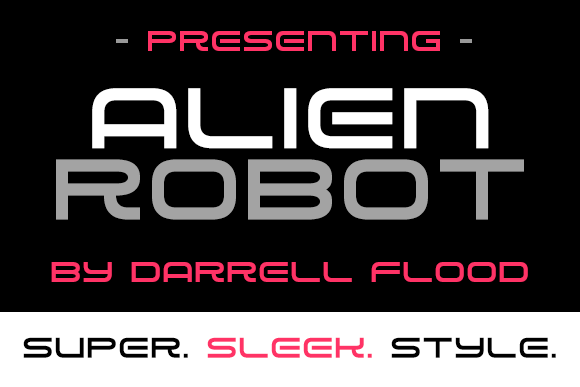
The Birth of a Cosmic Typography
Have you ever stared at a blank screen, waiting for the perfect font to strike inspiration? It’s a moment we’ve all experienced as creatives, when the cursor blinks and the ideas flow. For designers, this moment can be a game-changer. It’s the spark that sets off a chain reaction of creativity, leading to innovative projects that leave a lasting impression.
| 👤 Author | Dadiomouse |
One such font that’s sure to spark that creative spark is the Alien Robot Font. This futuristic, curved font is designed to transport your audience to a world of sleek modernity and sci-fi wonder. Perfect for tech presentations and futuristic themes, it’s an essential tool for designers looking to push the boundaries of visual storytelling.
Alien Robot Font Key Features
- Font Family: Alien Robot, with multiple weights and styles, including bold, italic, and bold italic.
- Character Set: The font includes a wide range of characters, including uppercase and lowercase letters, numbers, punctuation marks, and special symbols.
- Unique Characteristics: Alien Robot Font features a futuristic, robotic design with sharp edges and bold lines, making it perfect for sci-fi, technology, and gaming-related projects.
- Resolution: Alien Robot Font is designed to be highly legible at various resolutions, including low-resolution displays and high-resolution screens.
Designer Review: Alien Robot Font
First off, I’d like to say that the Alien Robot Font has some really cool aspects to it. ✨ The font’s sci-fi aesthetic is quite on point, with a great balance of futuristic and robotic elements. It’s perfect for projects that require a bold, edgy feel. The font’s bold and italic styles are particularly well-executed, making it a great choice for headings and emphasis.
- The font’s overall design is cohesive and well-thought-out.
- It’s a great choice for projects that require a high level of contrast and visual impact.
- The font’s sci-fi aesthetic is quite unique and will likely stand out in most design contexts.
However, there are a few limitations to the font that are worth noting. ⚠️ For one, the font’s readability can be a bit of a concern, particularly at smaller sizes. The font’s bold and italic styles can also be a bit overbearing, which may not be suitable for all design contexts.
Overall, I’d say that the Alien Robot Font is a great choice for projects that require a bold, edgy feel. However, it may not be the best choice for projects that require high readability or subtlety.
Alien Robot Font works well for creating futuristic and sci-fi themed designs in Canva.
Alien Robot Font is ideal for creating complex, detailed designs in Adobe Photoshop or Illustrator.
Alien Robot Font works well for creating presentations and documents with a futuristic or tech-savvy theme.
Alien Robot Font is suitable for:
- Sci-fi and futuristic designs.
- Technology and gadget-related designs.
- Space and astronomy-themed designs.
- Video game and anime-inspired designs.
Remember to experiment with different font sizes, styles, and combinations to get the most out of Alien Robot Font.